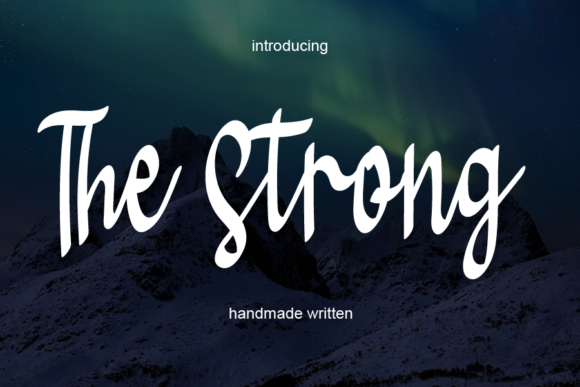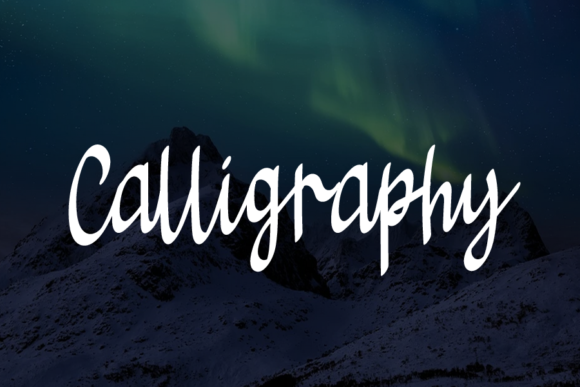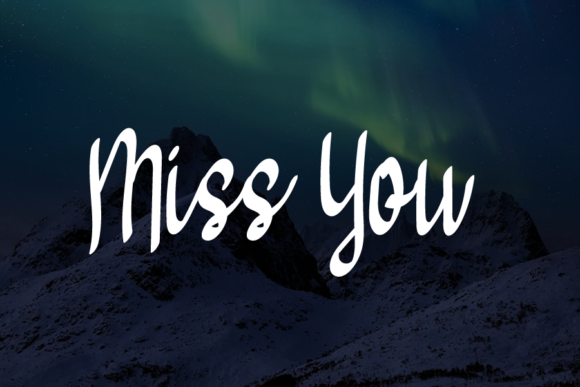
About The Strong Font
The Strong is a relaxed and adaptable handwritten font that you can use for all chalkboard quotes or teaching material! Its authentic look will add a personal and realistic feel to your designs.